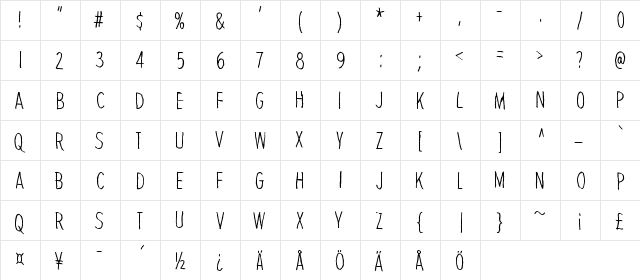
It never stops and we'll never Regular
Design Context for It never stops and we'll never Typeface
It never stops and we'll never takes a measured approach to typography — its balanced proportions and neutral character make it a reliable workhorse for both digital and print work.